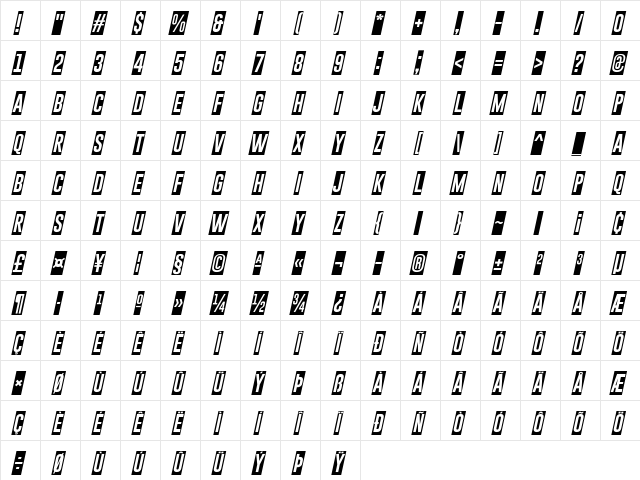
Gobold Blocky Italic
Design Context for Gobold Blocky Typeface
Gobold Blocky is a composed and adaptable typeface that performs quietly and consistently across a wide range of design contexts. The dynamic lean of this cut emphasises speed and emphasis in any layout. Its bold stroke weight gives it real presence on the page.
Pro Tip: Try Gobold Blocky for annotation and caption copy alongside an upright companion — the contrast in angle creates a dynamic but ordered typographic system.